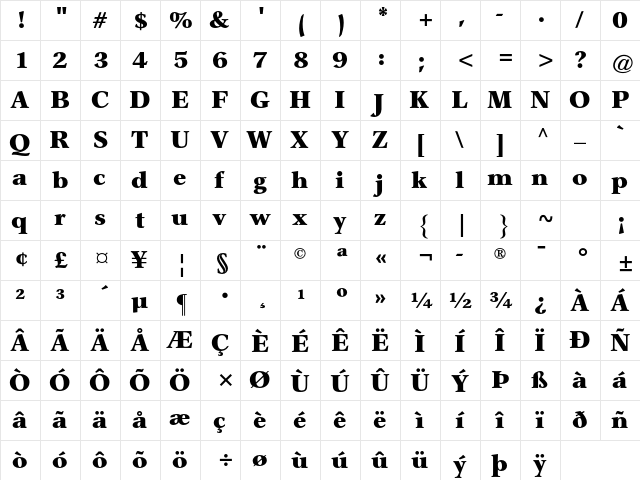
Garth Graphic Std Black Font Preview
Garth Graphic Std Black
Garth Graphic Std Black Font Details
| Designer | John Matt, Renee LeWinter, Constance Blanchard |
Design Context for Garth Graphic Std Typeface
Garth Graphic Std offers clean, dependable letterforms without strong stylistic allegiance, making it a practical choice for designers who need flexibility.